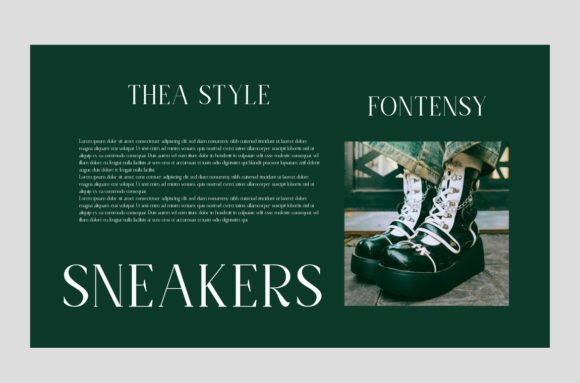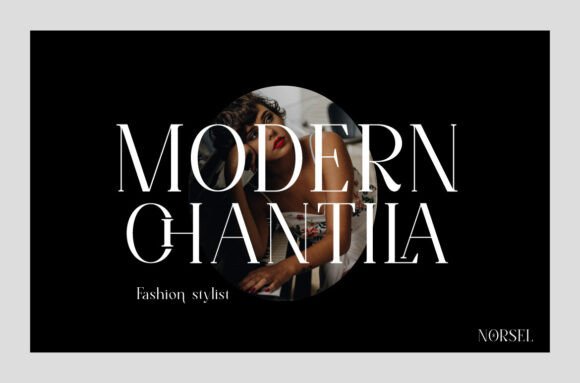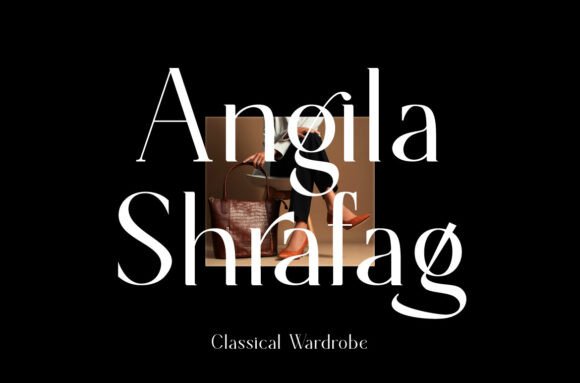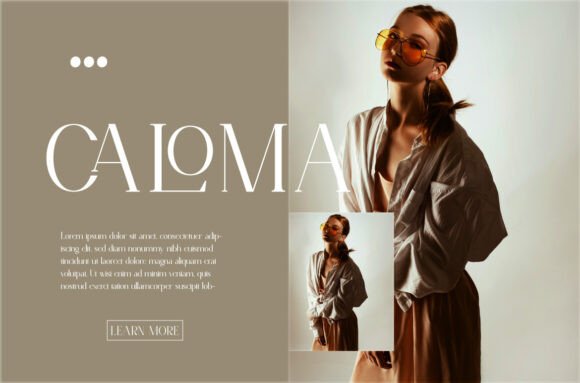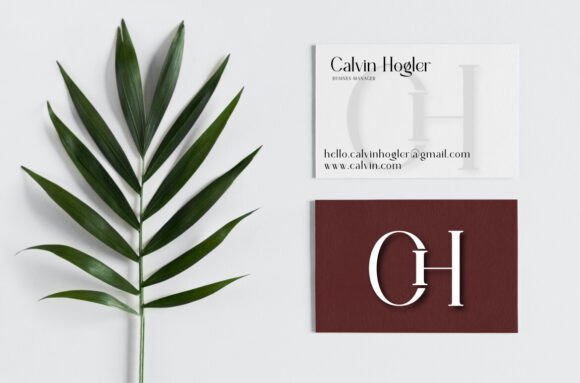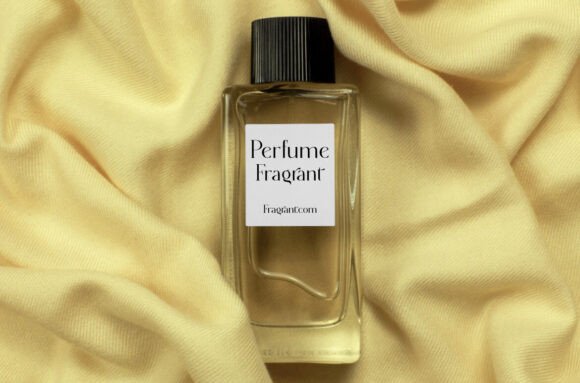
Introduction to Norsel Font
Imagine you’re rummaging through a dusty old archive, searching for the perfect vintage logo to complete your retro-themed project. As you flip through the stack of worn-out papers, you stumble upon a font that immediately catches your eye – the Norsel Font. Its bold curves and classic serifs evoke the nostalgia of the 1970s, transporting you to a bygone era of groovy vibes and funky designs.
The Norsel Font is more than just a stylish addition to your design resource library – it’s a valuable asset for designers looking to add a touch of sophistication and timelessness to their creative projects. With its unique combination of modern and traditional elements, this high-quality font is perfect for those seeking to create a lasting impression.
Key Features of Norsel Font
- Unique, bold font style perfect for making a statement in digital designs
- Designed to provide a modern, elegant look for any creative project
Honest Review: Norsel Font
As a designer, I’m always on the lookout for high-quality design resources that can elevate my creative projects. Recently, I came across the Norsel Font, and I’m excited to share my honest review.
- ✨ The Norsel Font has a unique and elegant design that can add a touch of sophistication to any project.
- ⚠️ The font may not be suitable for all types of projects, particularly those requiring bold or dramatic typography.
- ⚠️ The font is not available in as many languages as I would like, which may limit its use for international projects.
Overall, I’m impressed with the Norsel Font’s high quality and versatility. While it may have some limitations, it’s a great resource for designers looking to add a touch of elegance to their creative projects. Whether you’re working on a logo, brochure, or website, the Norsel Font is definitely worth considering.
Norsel Font
Tips for Getting the Most Out of Norsel Font
For a high-quality design, use Norsel Font on a transparent background to create a clean and modern look. Experiment with different font sizes and styles to add depth and visual interest to your design. Use Norsel Font in combination with other design elements, such as images and graphics, to create a unique and creative project.
Norsel Font is a versatile design resource that can be used in a variety of creative projects, including logos, branding materials, and marketing materials. It’s also great for use in presentations, reports, and other business documents. With its high-quality design and transparent background, Norsel Font is a great choice for any project that requires a professional and creative look.
Yes, the Norsel Font features a transparent background, allowing for easy layering and blending with other design elements. This makes it an ideal choice for designers working on creative projects that require complex typography and composition.
What is the recommended font size and line height for optimal readability with the Norsel Font?
For optimal readability, we recommend using the Norsel Font at a minimum size of 12 points, with a line height of at least 1.5 times the font size. This will ensure that the text remains clear and legible, even in high-resolution designs.